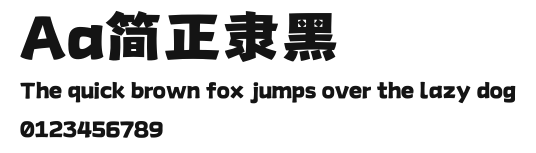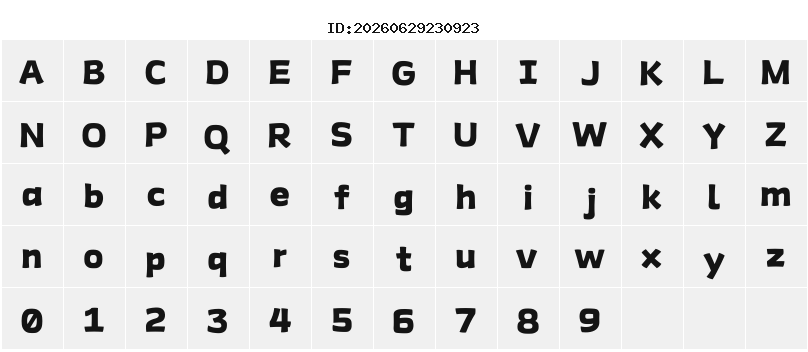
• Font Name: Aa简正隶黑
• Font Style: 常规
• Font ID: 1.000;Aa;AaJianZhengLiHei;2024
• Full Font Name: Aa简正隶黑
• PostScript Name: AaJianZhengLiHei
• Character Count: 10910
• Designer: Aa
• Manufacturer: 翰美互通(厦门)科技有限公司
• Description: AaJianZhengLiHei is a fantastic font with excellent features designed for user interfaces and electronic communications.
About Aa简正隶黑.ttf
Aa简正隶黑.ttf is a modern, elegant sans-serif font designed for ultimate readability and visual harmony. Perfect for branding, headlines, web design, and print materials.